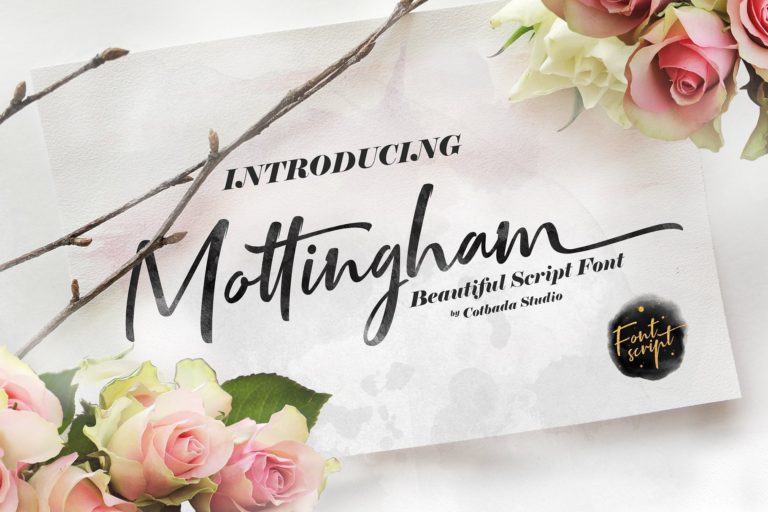
Mottingham Script Font
A modern handwritten typeface, designed and shared by Cotbada_studio. Introducing Mottingham Font. Mottingham is a unique, cool and modern handwritten font. It’s hand look style makes it perfect for use in all your design projects be it logos, signatures, labels, packaging design, blog headlines and Language Support